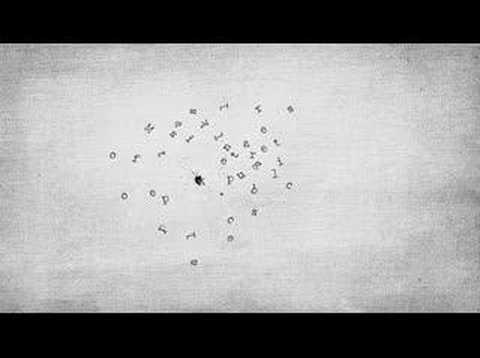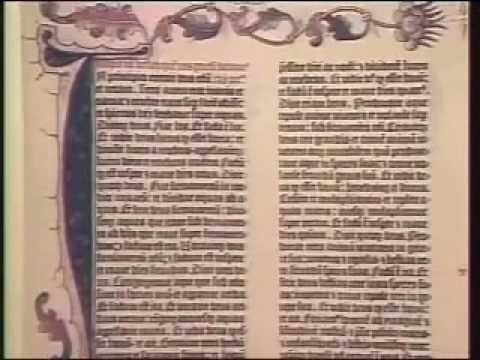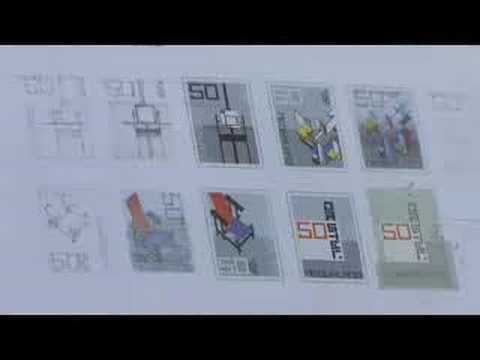
Typography Videos
Here are some typography-related videos.
This video is a beautiful brief introduction to typography. Typography is what language looks like - Ellen Lupton. A good typographer is someone who communicates a point of view with skill and imagination and makes the type taste good—Jeffrey Keedy
Veteran graphic design, typography and letterpress teacher from the London College of Printing, David Dabner talks about typography, giving an insight into the principles of design, creative letterpress and why computers—in his opinion—make students sloppy.
An interesting use of type. The typewriter font mimics those used in old police reports. Individual letter forms are animated to illustrate characteristics of, in this instance, a serial killer.
Helvetica The Documentary (clip) Wim Crouwel:
One minute and 53 seconds with Wim Crouwel. “Neutralism was a word that we loved”.
Helvetica The Documentary (clip) Erik Spiekermann.
“I just like looking at type…they are my friends.”
Pulp Fiction
“What ain’t no country I ever heard of….”
Devil’s Advocate
“Inside information”
Typography in Motion
“Conscious”
Typography Brazil
Designing Multi Lingual OpenType Fonts
TV Interview: Typeface Design
ESAD(Portuguese School of Arts and Design) has this series of videos of renown designers speaking at their auditorium. Erik Spiekermann’s speech is brilliant, he’s such a funny man!
I love these motion typography videos. It’s actually really hard to do (or do well, at least) — believe me, I’ve tried. I found a bunch of really cool ones here: